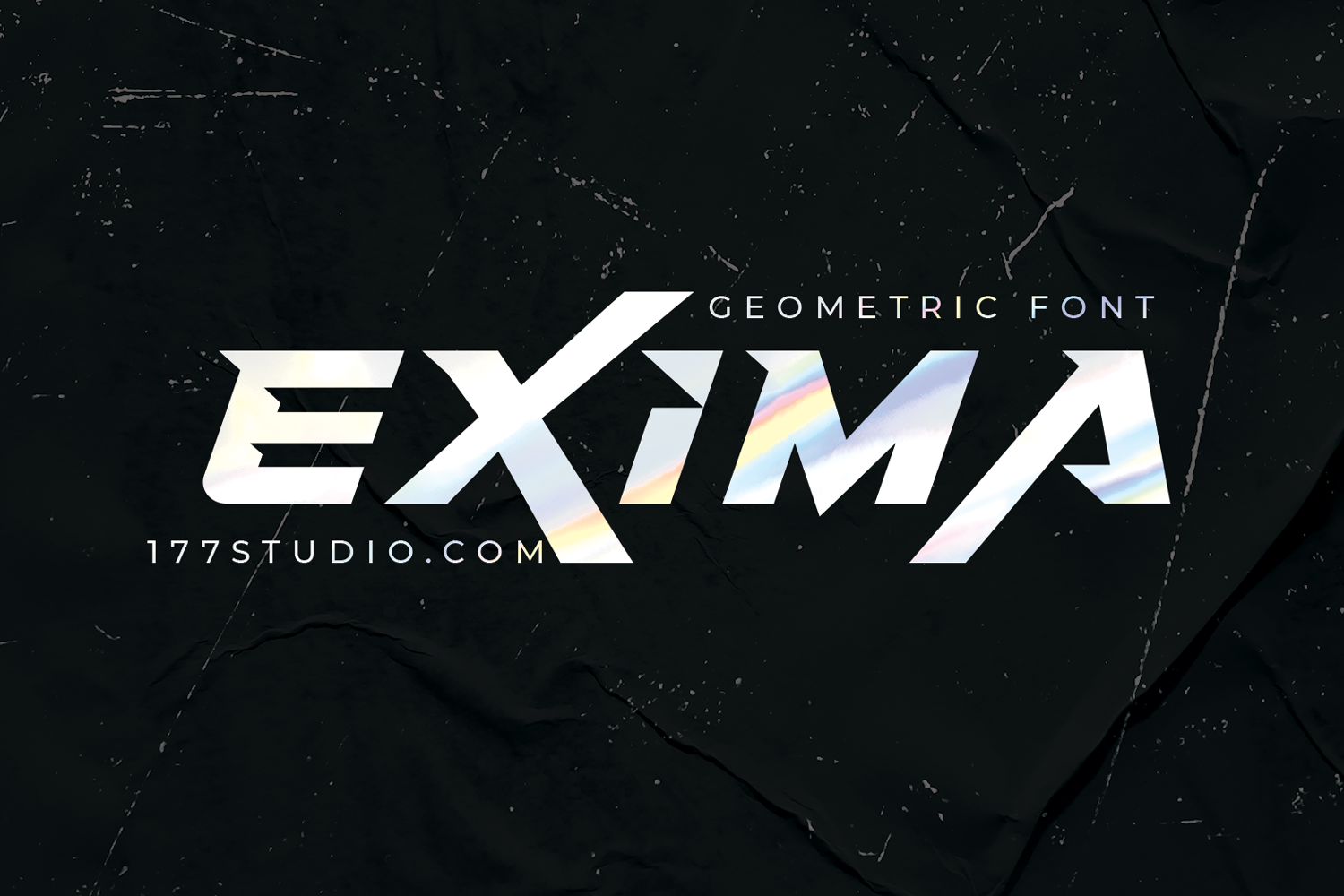
Exima Geometric Font
Exima Geometric Font is a geometric sans serif font. This is a universal font that can be used for both headings and paragraphs, thanks to the customized kerning for bold style. The typeface includes uppercase multilingual letters, numbers and punctuation. I've found the font to be great for logos, titles and I enjoy using it with really wide spacing.